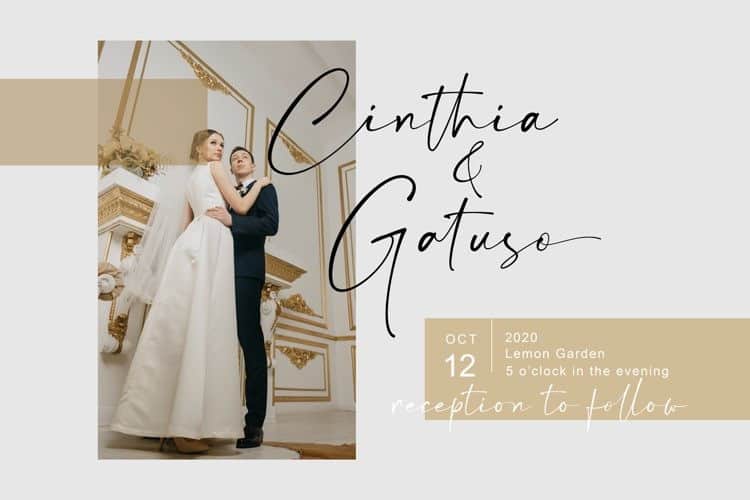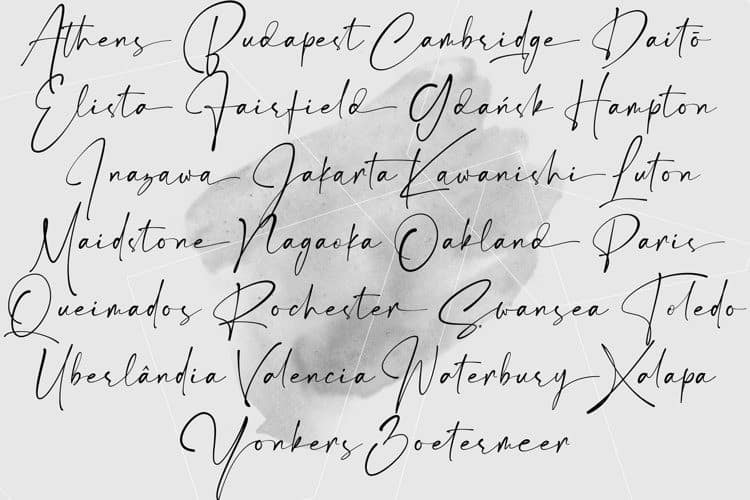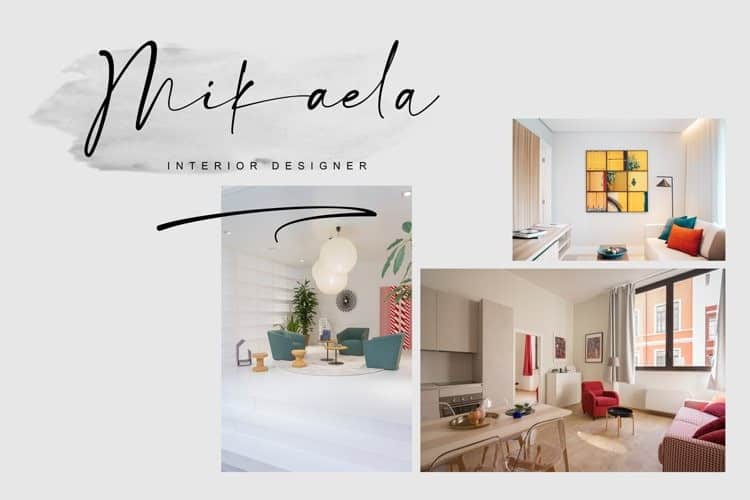
Introducing Estrada Signature Font is a beautiful script with alternate, stylistic and ligature from drizy! Made from font designer named lemonthe. This typeface is luxury Signature font. Estrada Signature Font is the perfect font for branding, wedding invitations, stationery, photography, social media posts, product packaging, greeting cards, and much more!